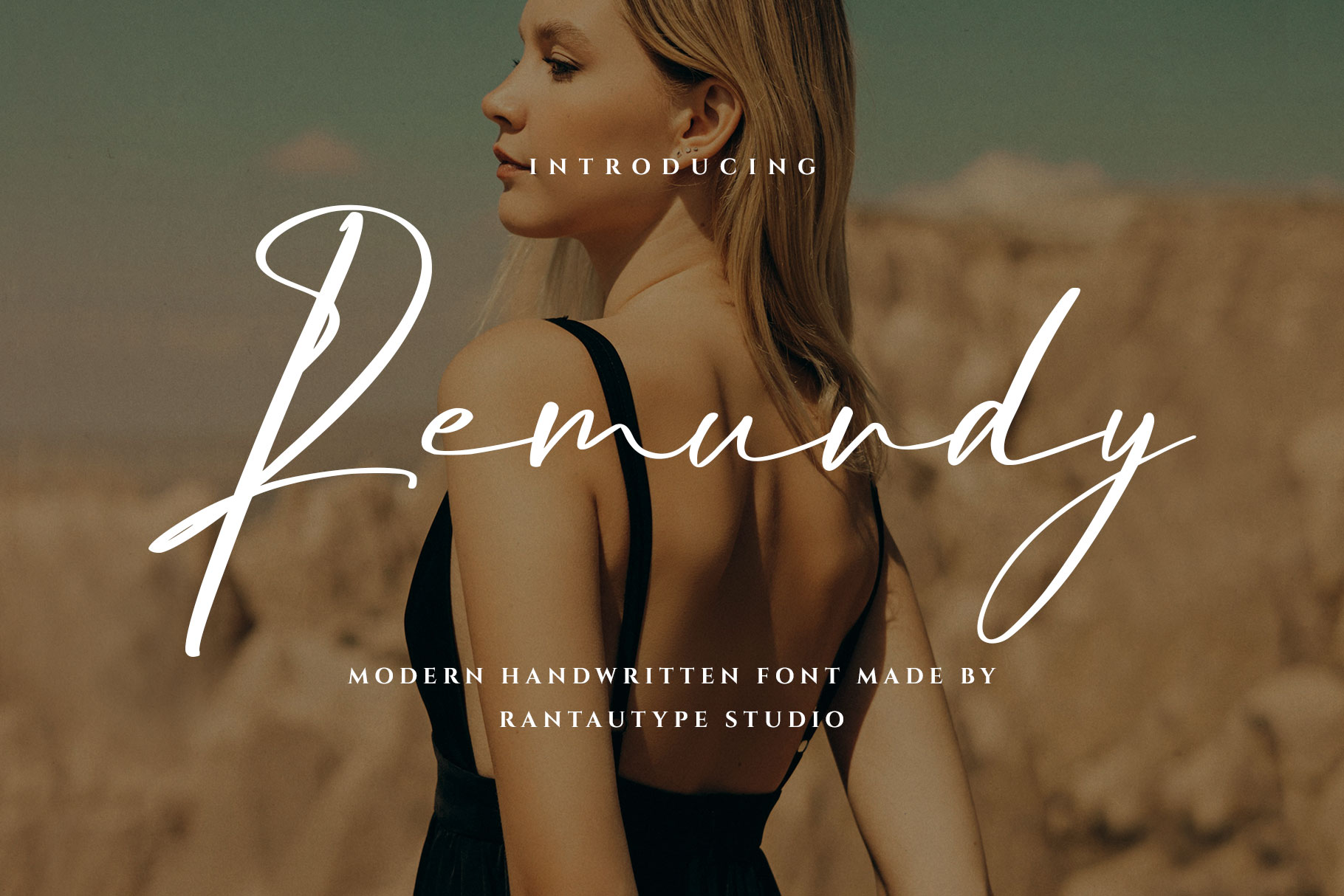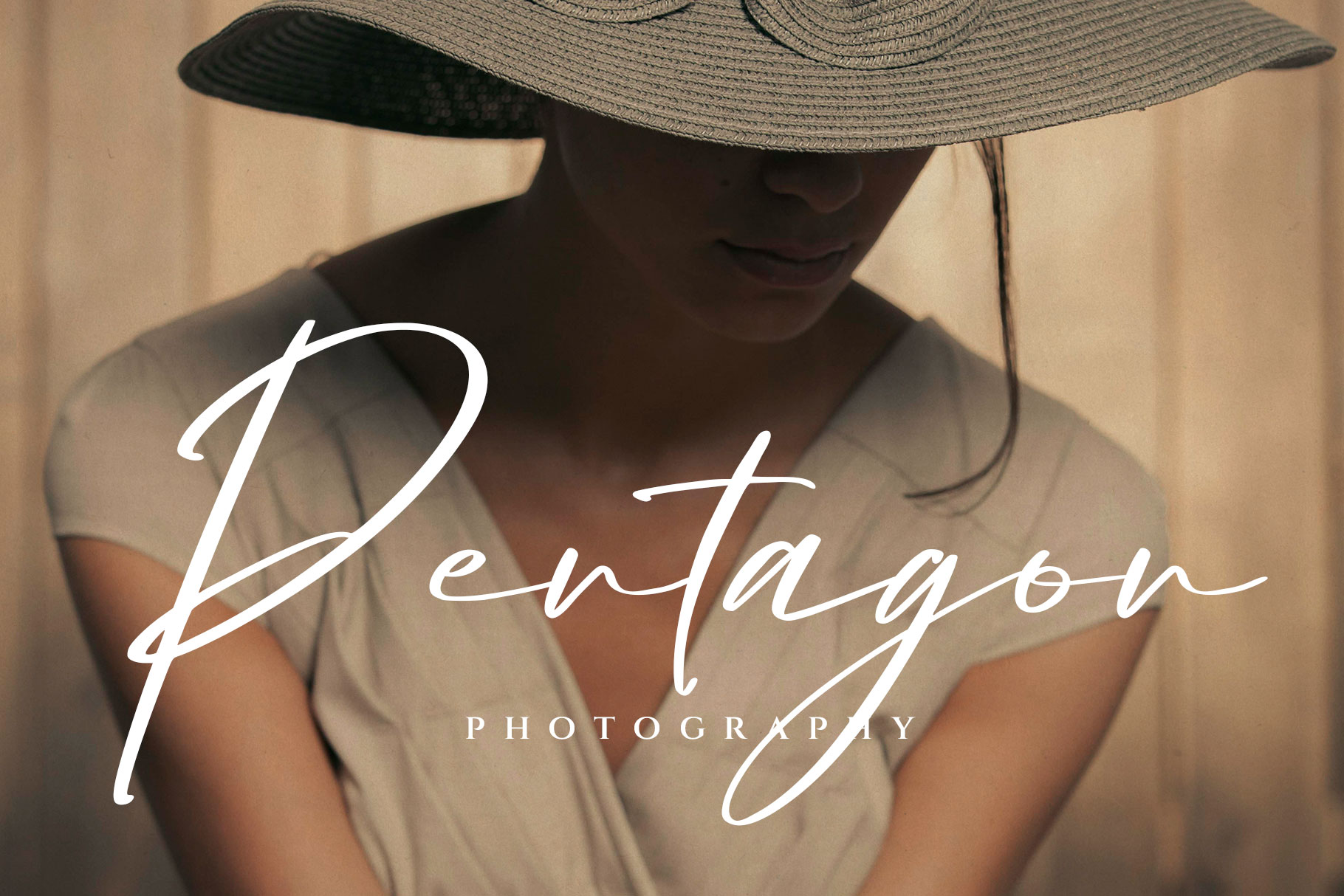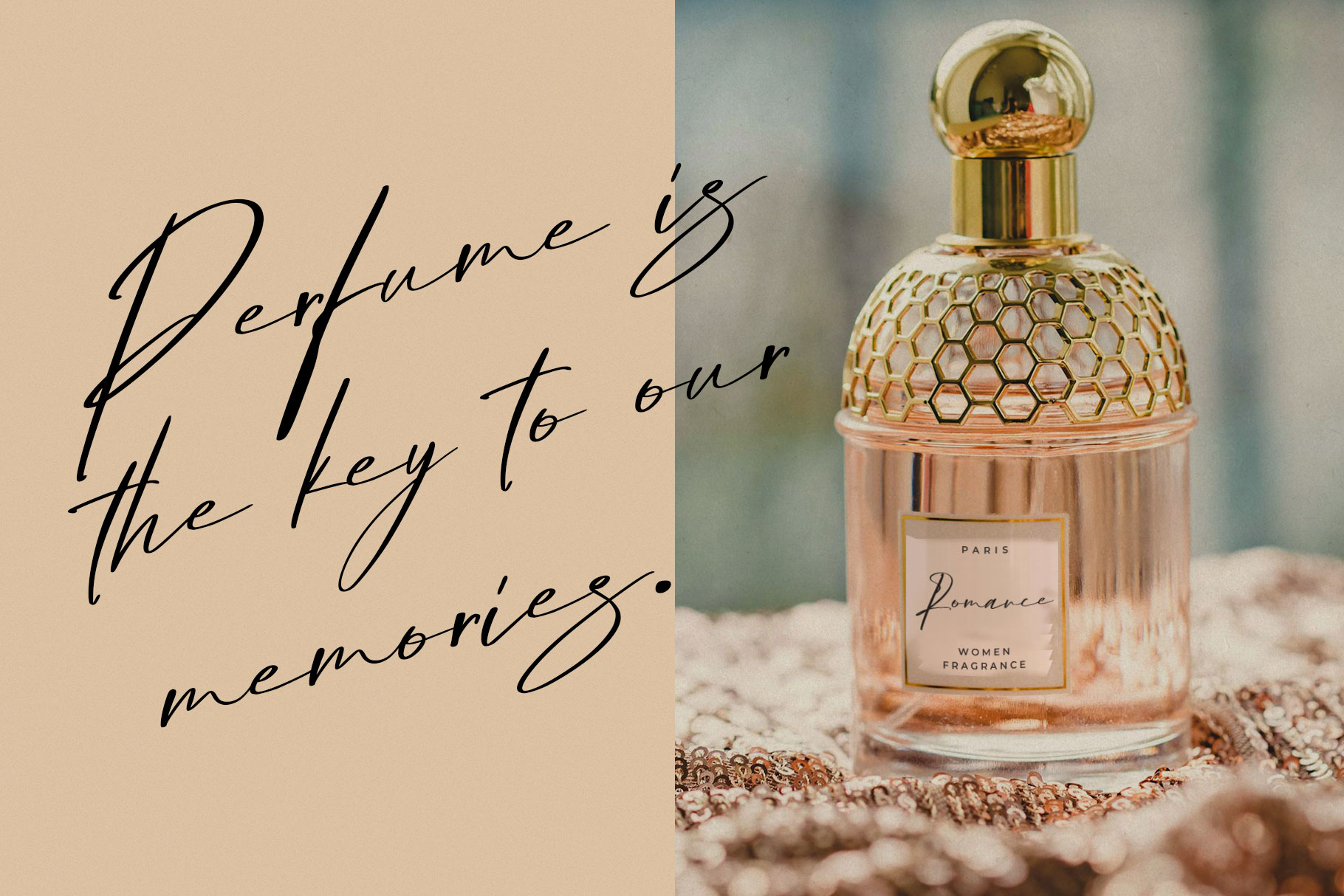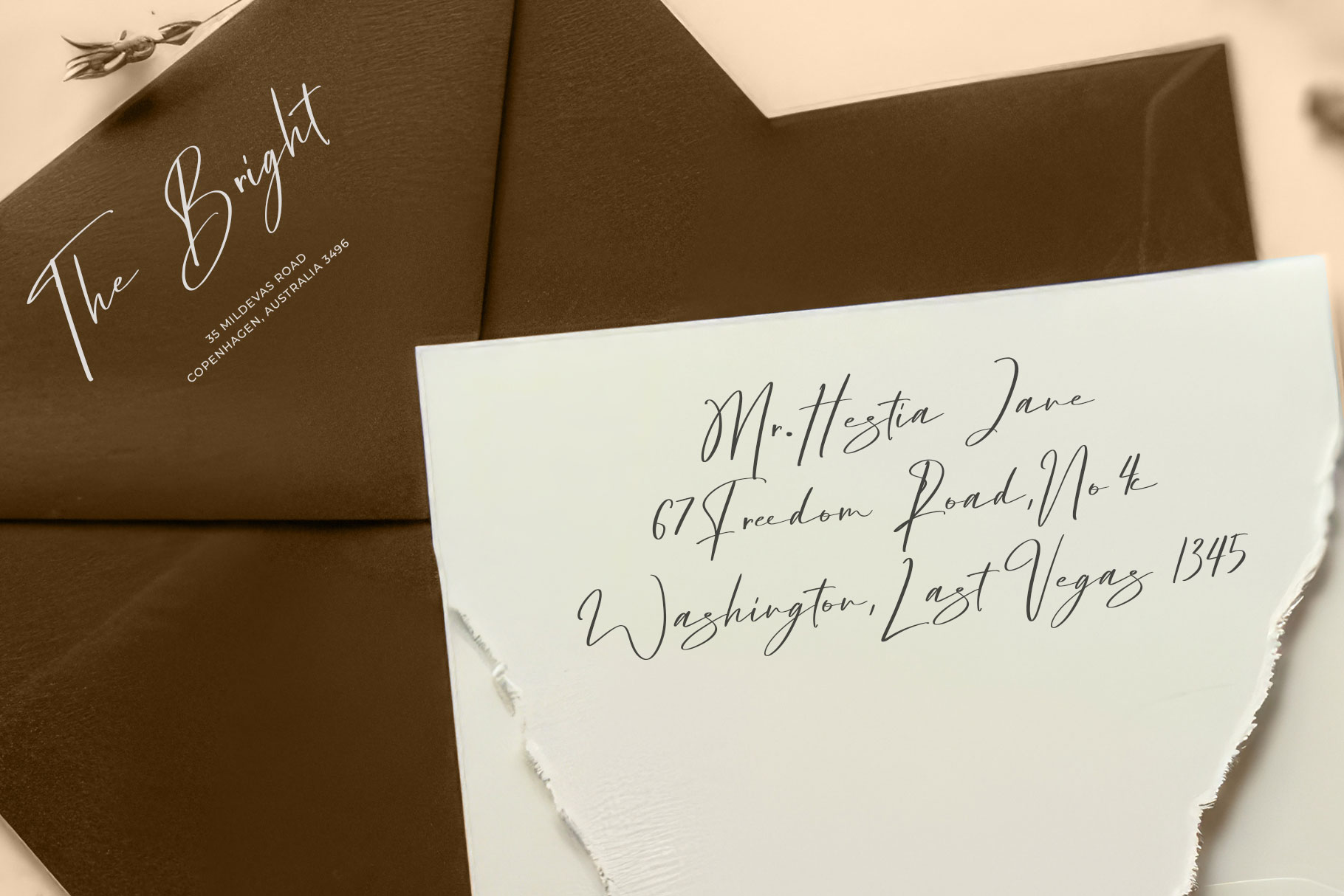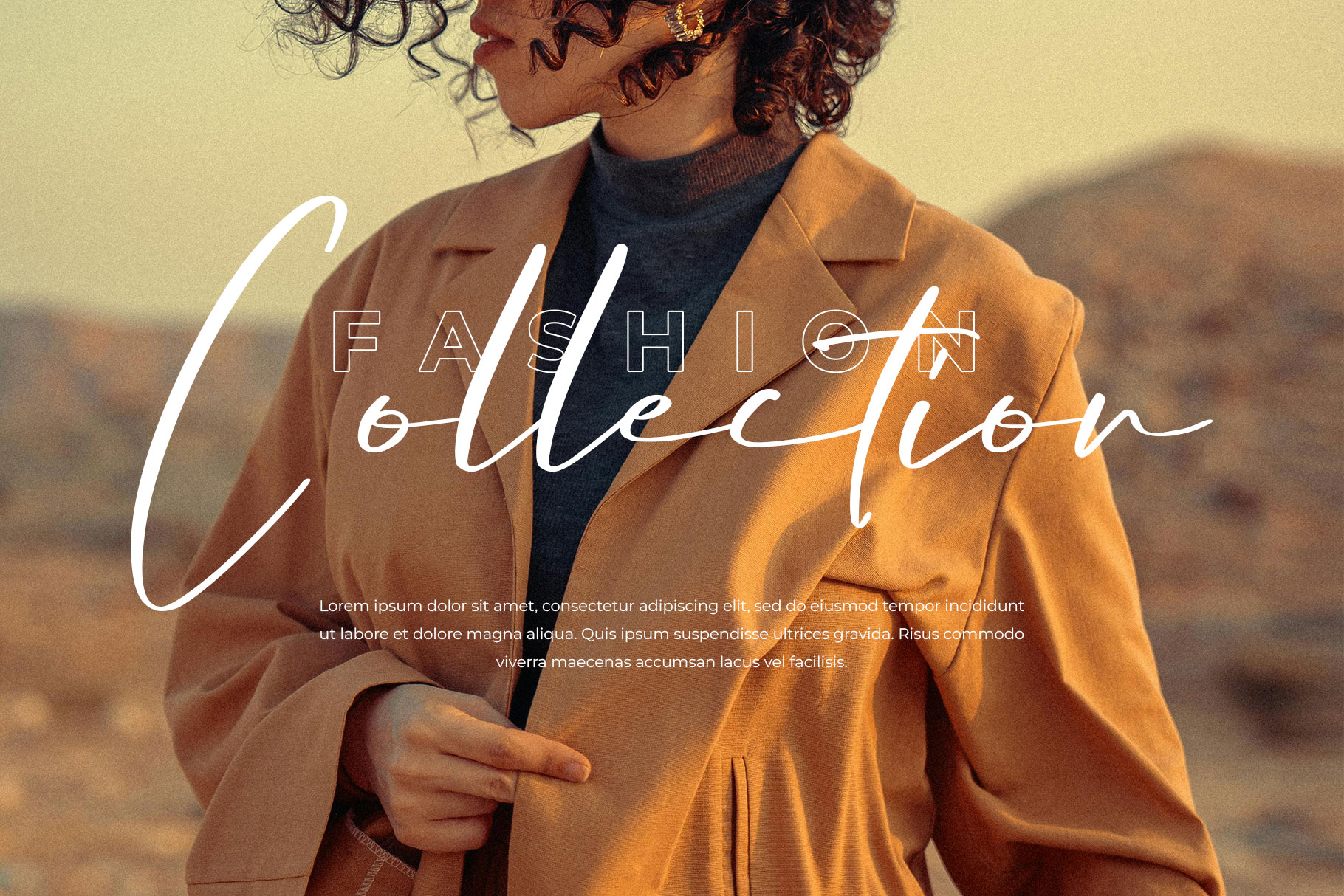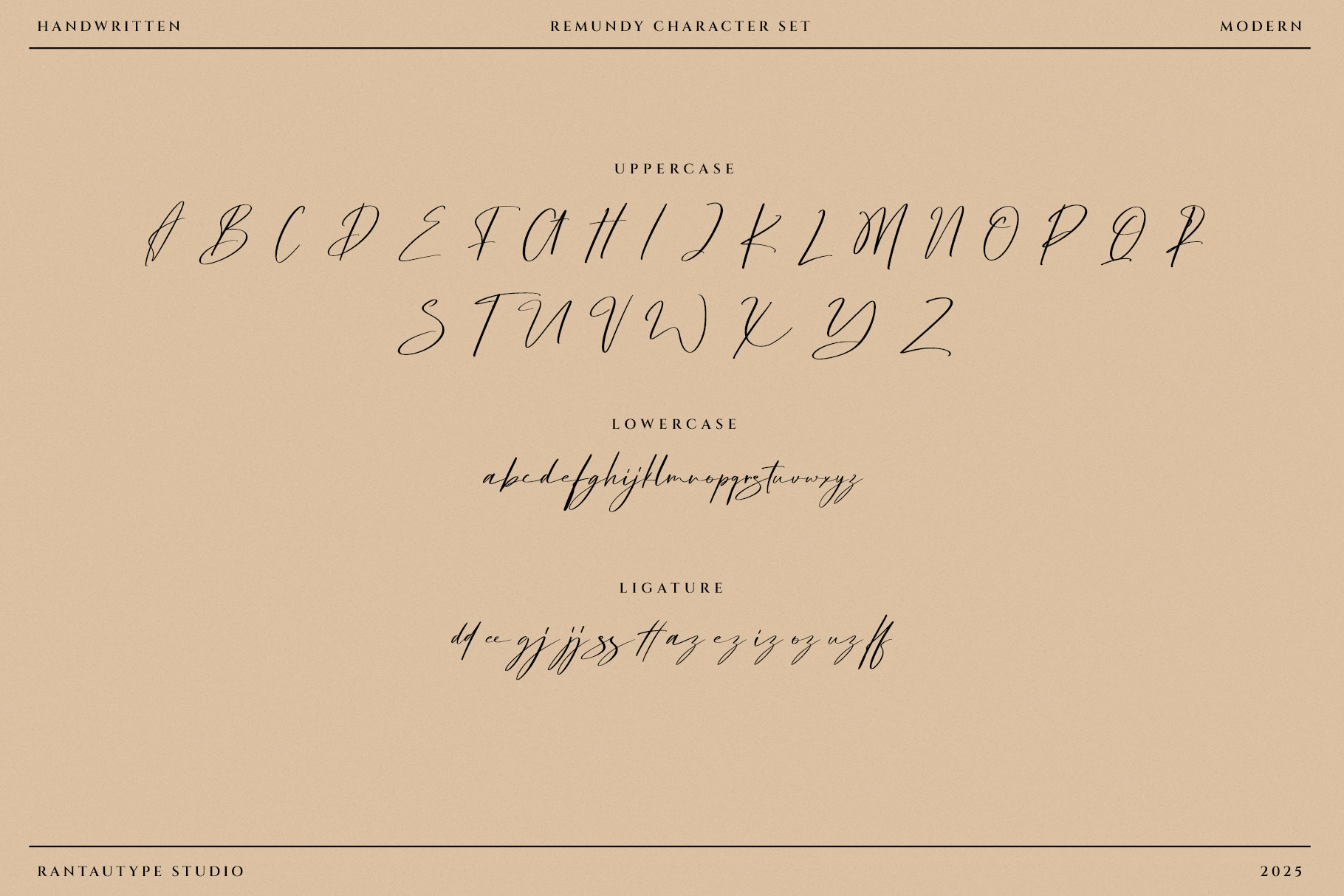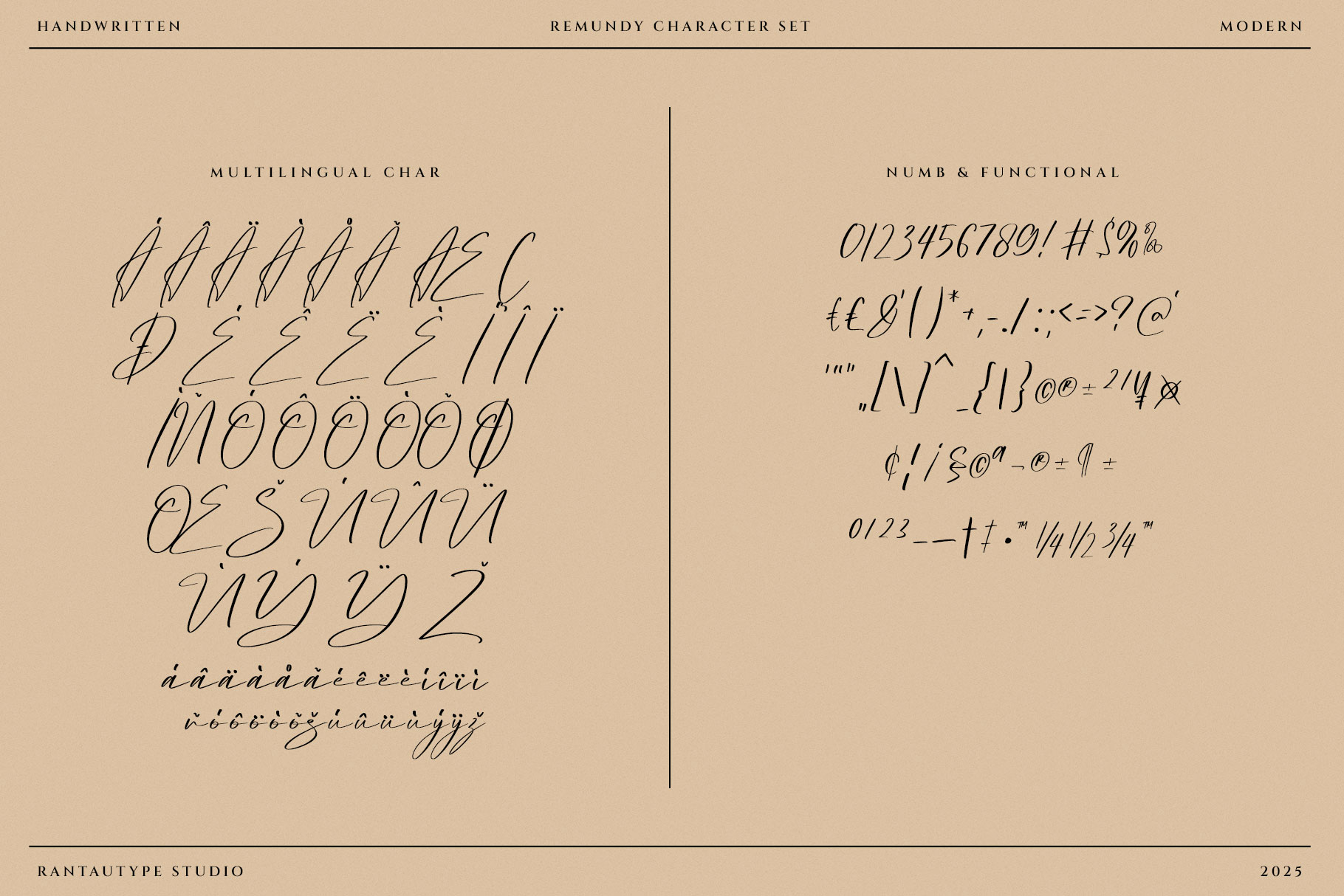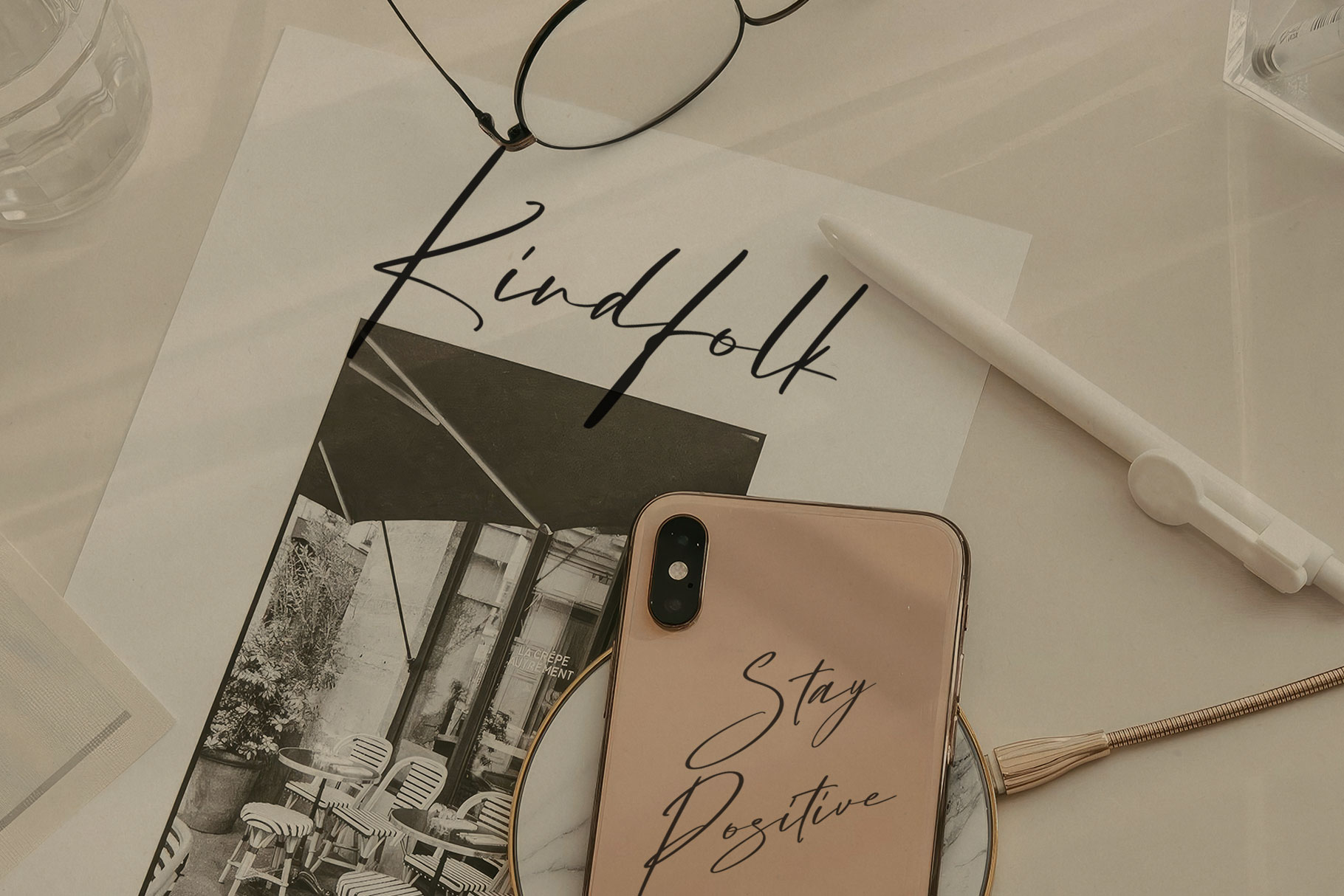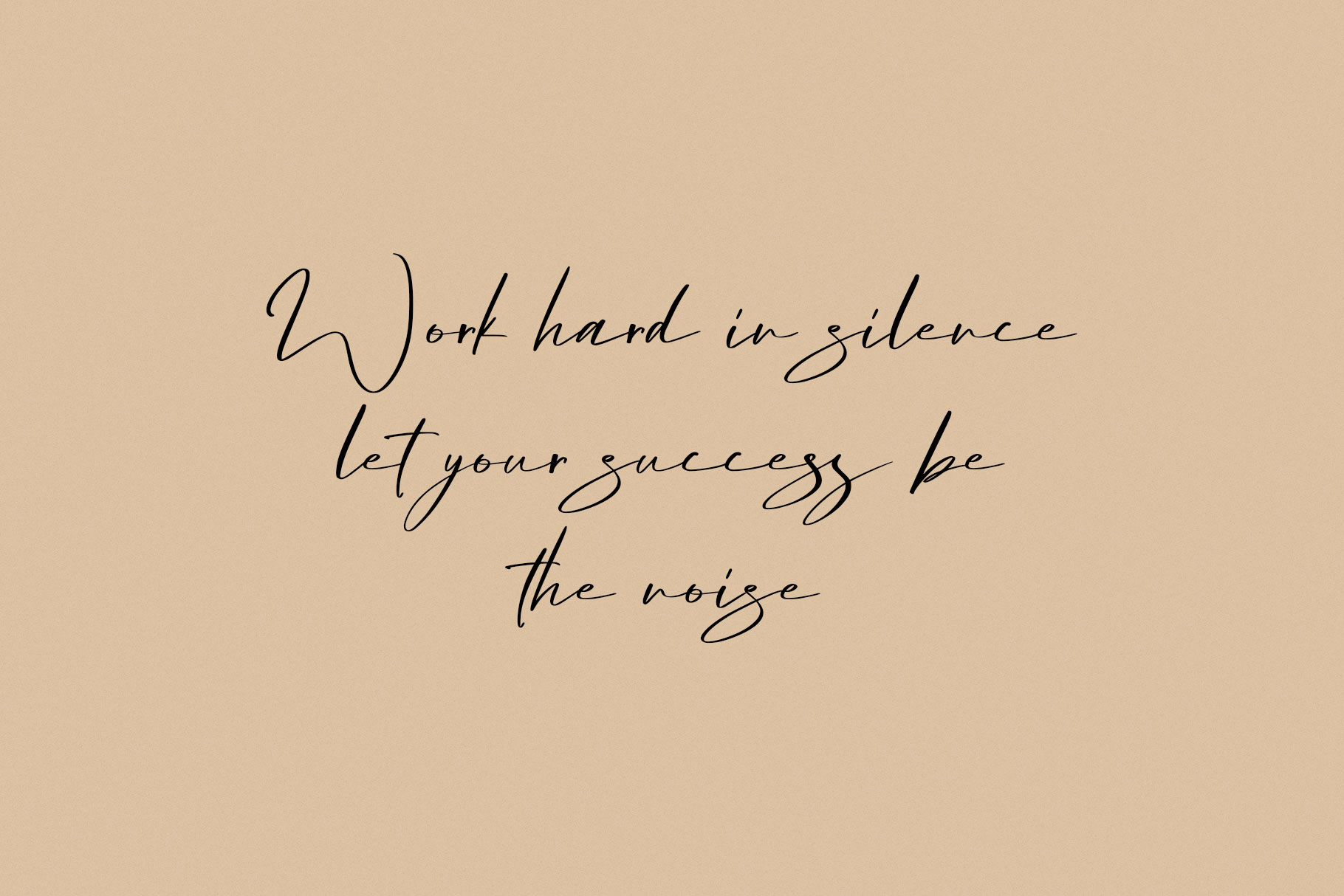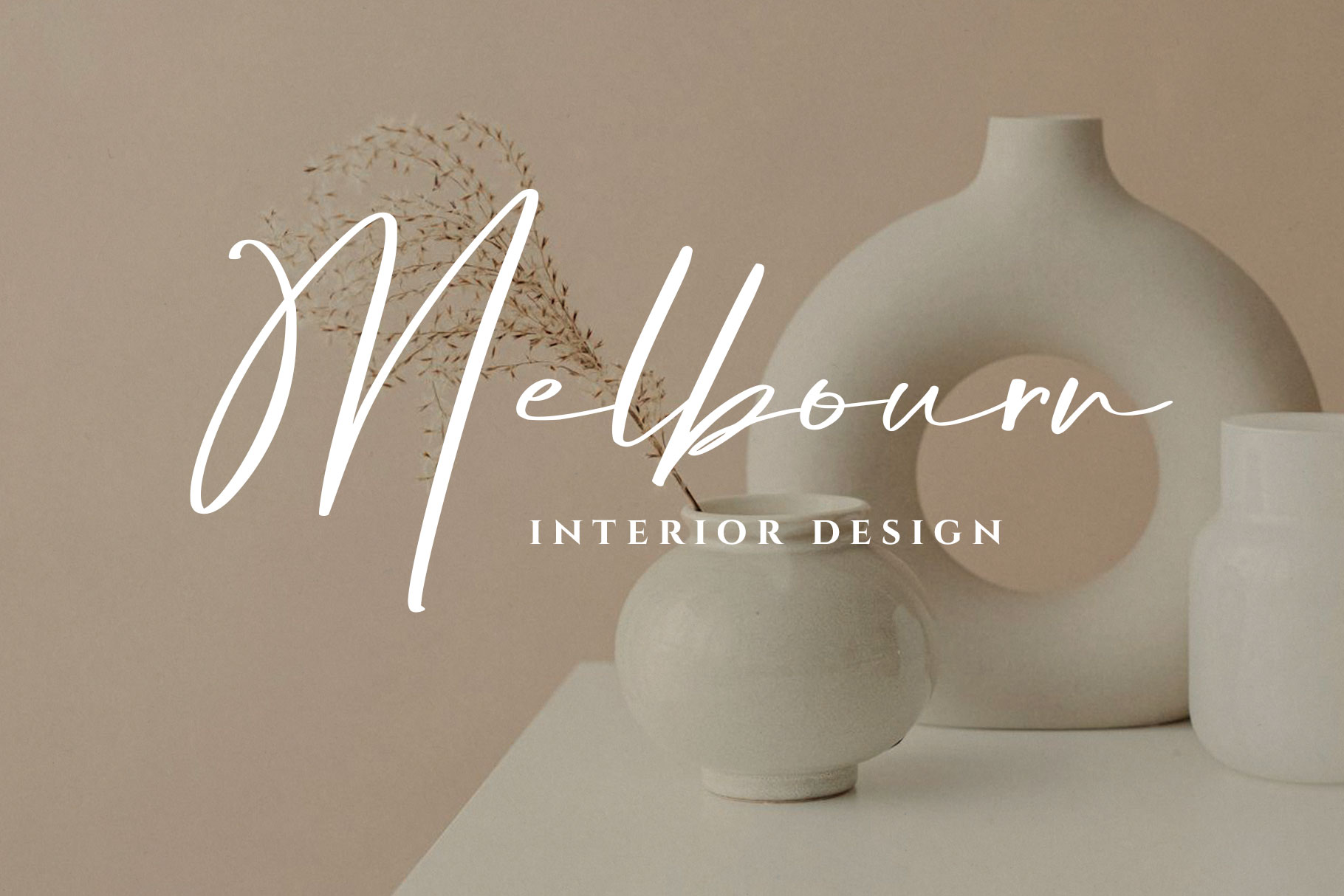
Remundy Modern Handwritten Font
Remundy is modern handwritten made by rantautype studio. Remundy is a perfectly choice for any creative endeavor, creating, modern, chic, lifestyle design such as logotype, title, cover, branding, invitations, wedding designs, display and magazine, social media posts, advertisements, printed quotes, product packaging, corporate brand, product designs, labels, photography, watermarks, special events and any other project with modern touch.